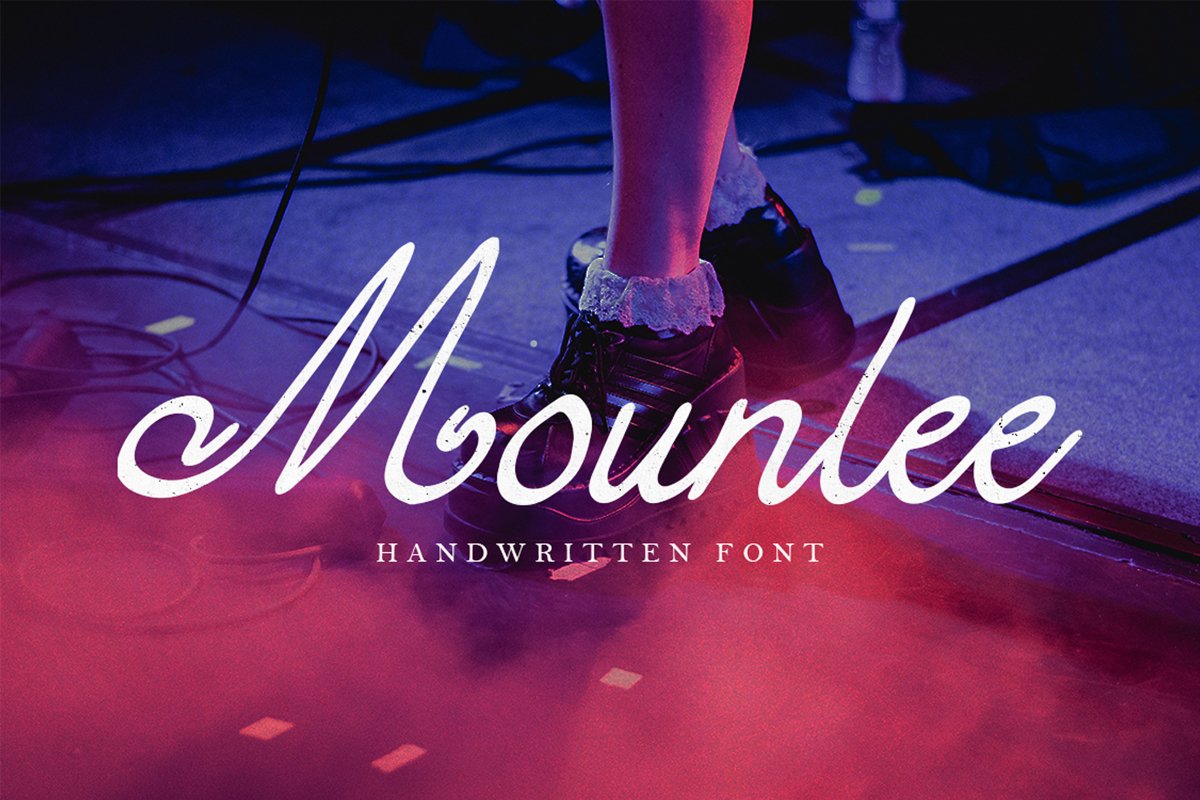
Mounlee - Handwritten Font
Mounlee
"Mounlee" is perfectly suited to signature, stationery, logo, typography quotes, magazine or book cover, website header, clothing, branding, packaging design and more. A handwritten script font containing upper and lowercase characters, numerals and a large range of punctuation.